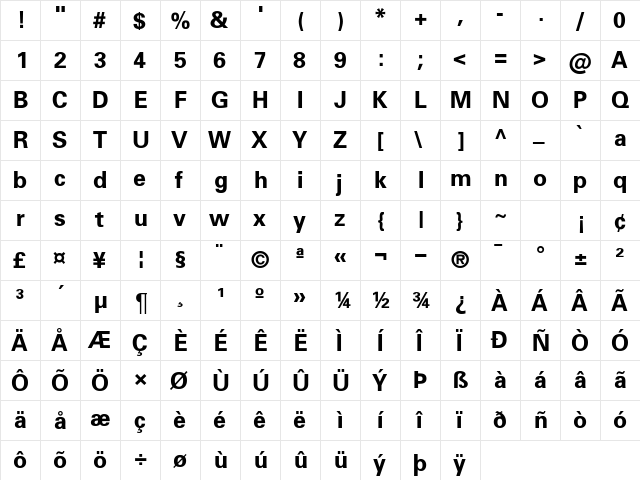
Unfug Bold
Design Context for Unfug Typeface
Unfug is a composed and adaptable typeface that performs quietly and consistently across a wide range of design contexts. Its bold stroke weight gives it real presence on the page.
Pro Tip: Use Unfug in both headline and body roles to test its range before committing to a single application.